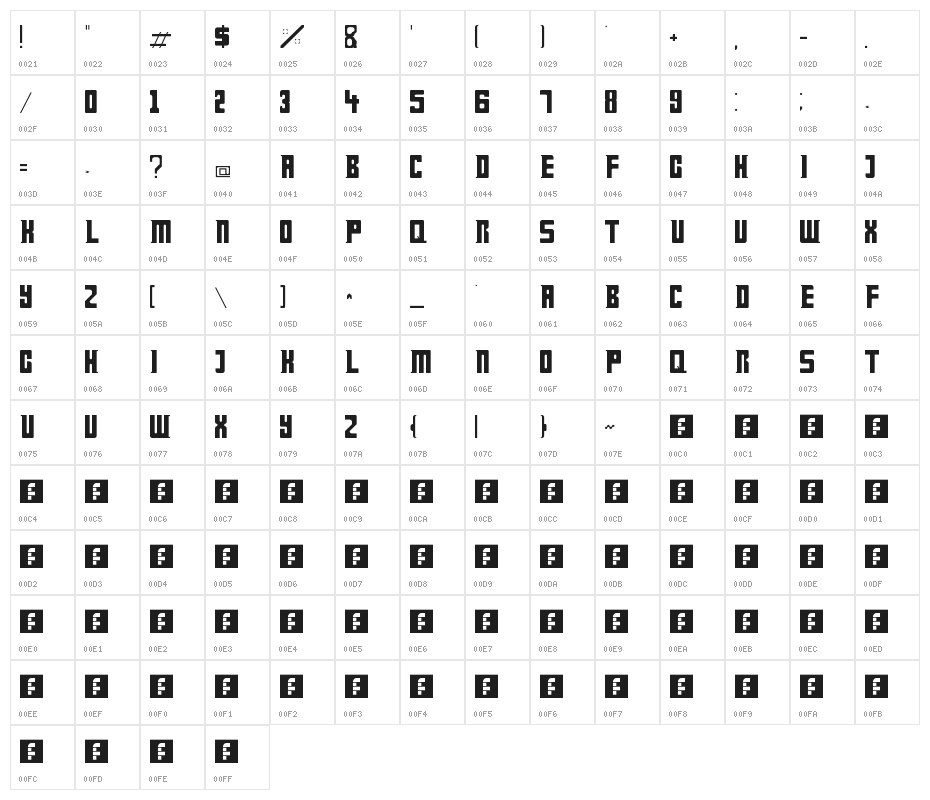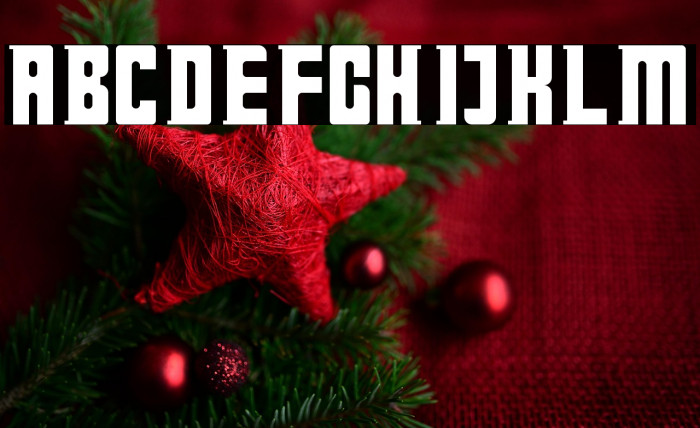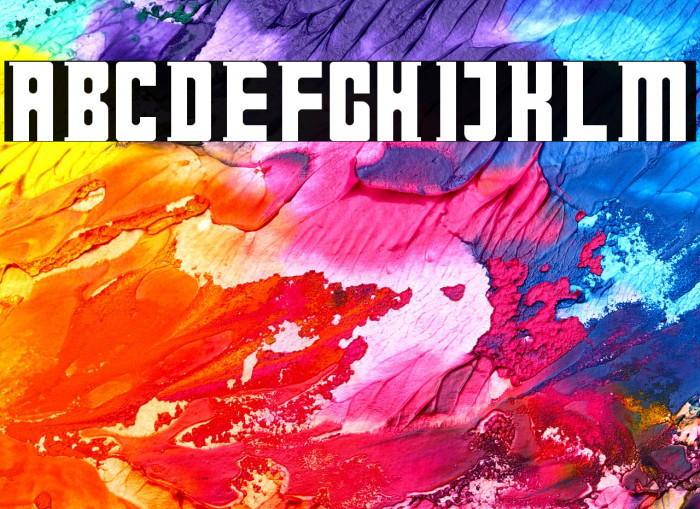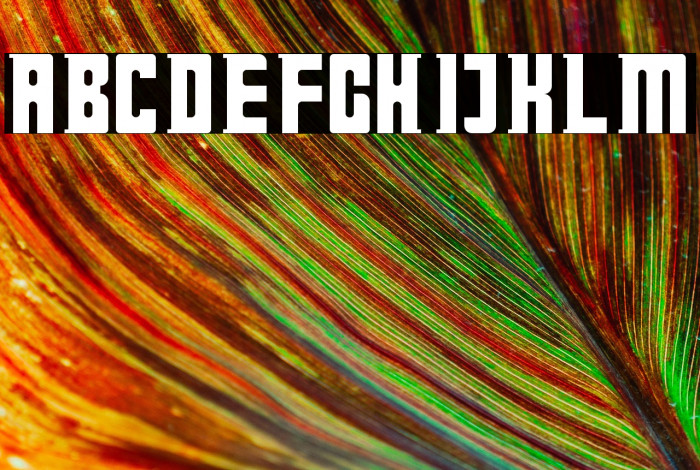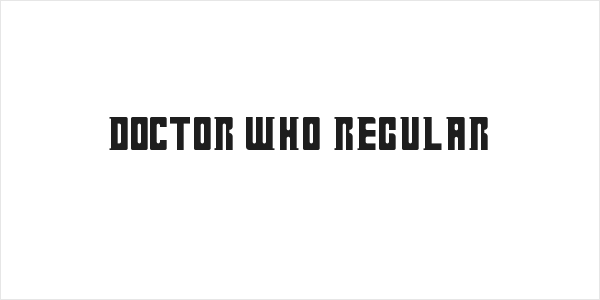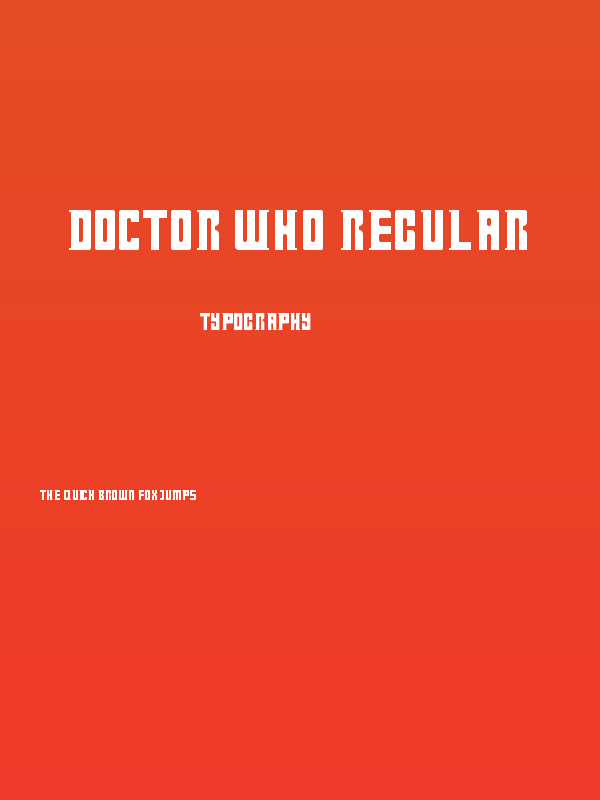
Doctor Who Regular Font
Doctor Who Regular Description
This font features a bold and striking design with a futuristic and geometric aesthetic. The characters are blocky and robust, with a consistent stroke width that gives them a strong presence. The uppercase letters are tall and imposing, while the lowercase letters maintain the same boldness, ensuring uniformity across the text. The numbers and special characters are designed to match the overall style, with sharp angles and clean lines. This font is ideal for projects that require a modern and impactful look, such as sci-fi themed designs or branding that aims to convey strength and innovation.
| Overall Style | Futuristic, Modern |
| Proposed Projects | Ideal for sci-fi themed designs, branding, posters, and headlines that require a modern and impactful look. |